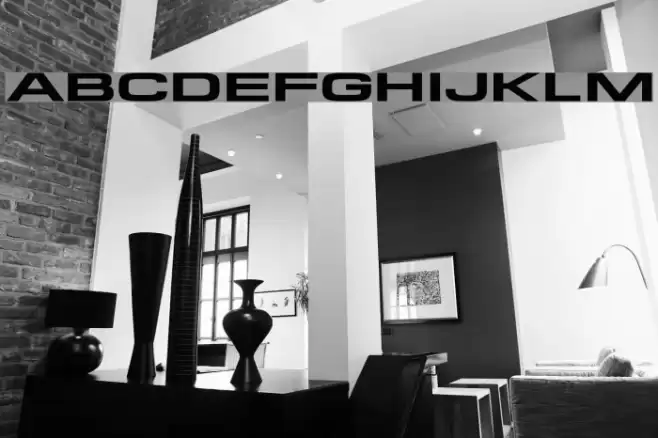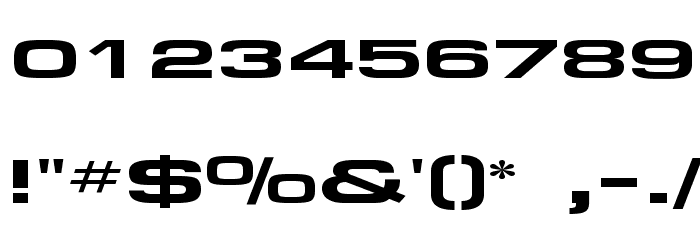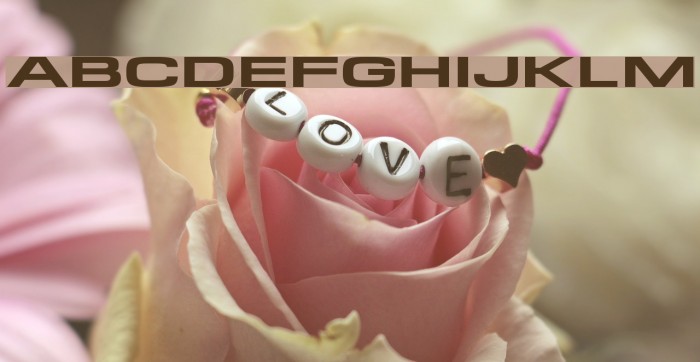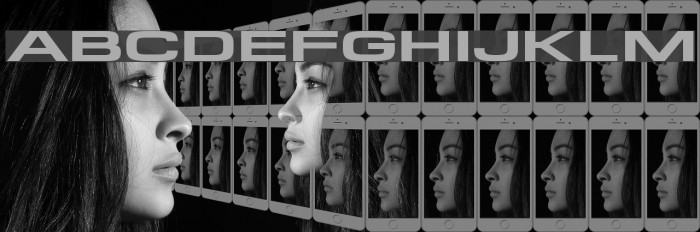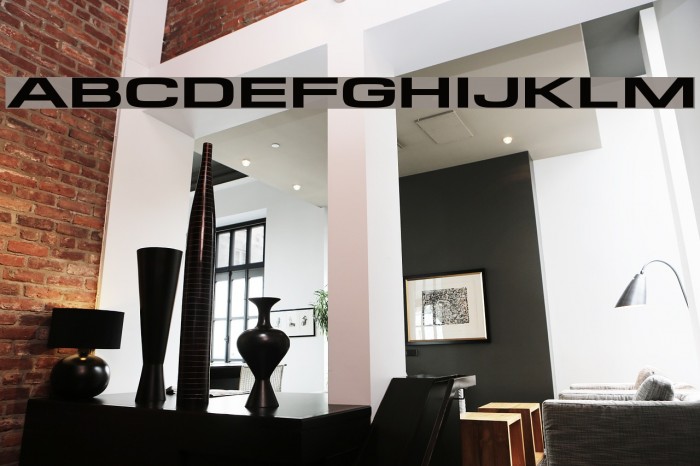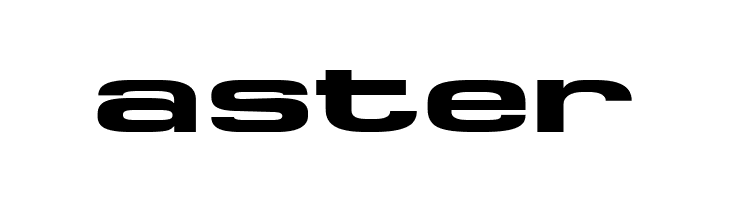
FederationWide Font
FederationWide Description
This font features a bold and modern design with a futuristic flair. The characters are wide and slightly condensed, giving a sense of strength and stability. The uppercase letters are particularly striking, with sharp angles and clean lines that convey a sense of precision. The lowercase letters maintain this aesthetic, offering a cohesive look across all text. Numbers and special characters are equally bold, ensuring consistency throughout. The overall style is sleek and professional, making it suitable for a variety of applications where a contemporary and impactful appearance is desired.
A bold, modern font with a futuristic and sleek design from Uncategorized fonts.
- Proposed Projects: Ideal for technology branding, sci-fi themed projects, modern advertising, and digital interfaces.
- Use Case: Headlines, Logos, Digital interfaces